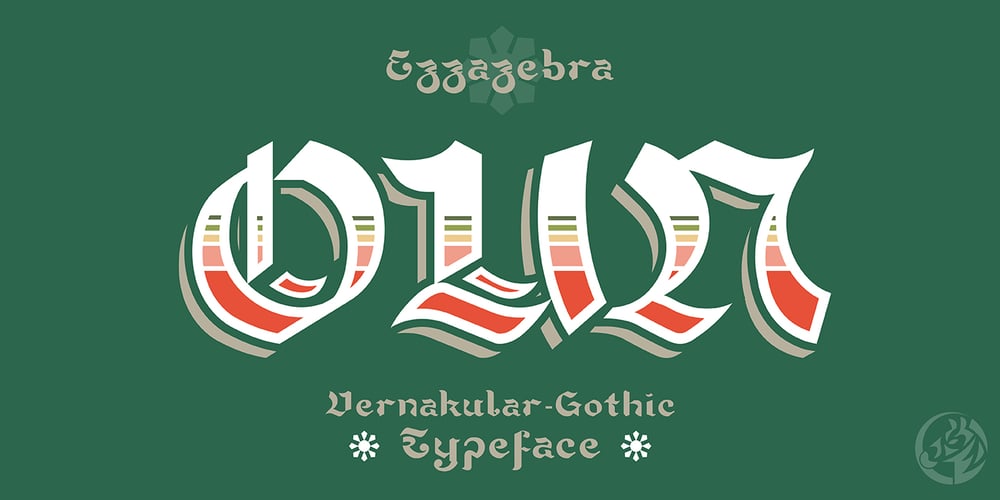
Oun Font Family was designed by Adhreza Brahma and published by Ezzazebra. Oun contains 1 styles and family package options. Inspired from Cambodia’s alphabet, Khmer. I tried to explore the visual of the original character in Latin characters. Inspired by 2 gothic fonts, Old London (for the modern/straight feel) and Berliner (for the dynamic between thin and bold line). The letters are made with pencil in a millimeter block book, then scanned into clean vector format. And the result can be use for Display or a Headline with traditional or ethnic theme, including film, game, event, etc.